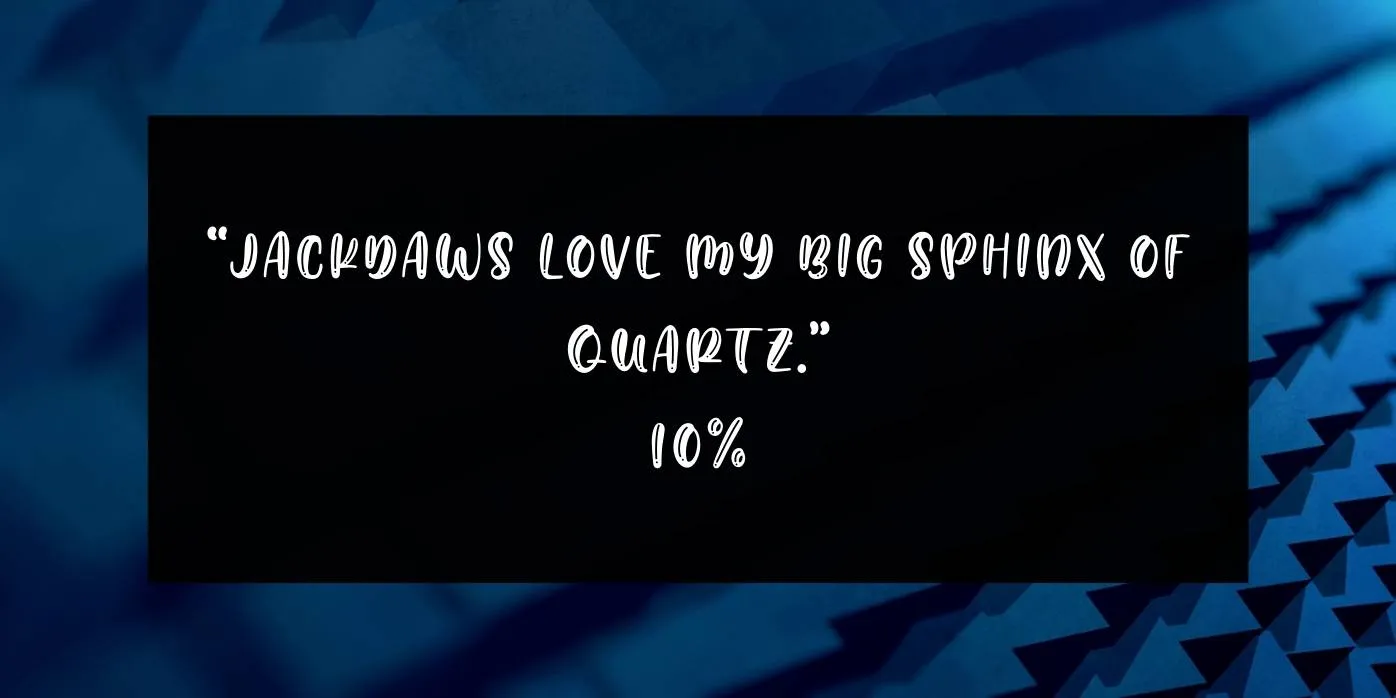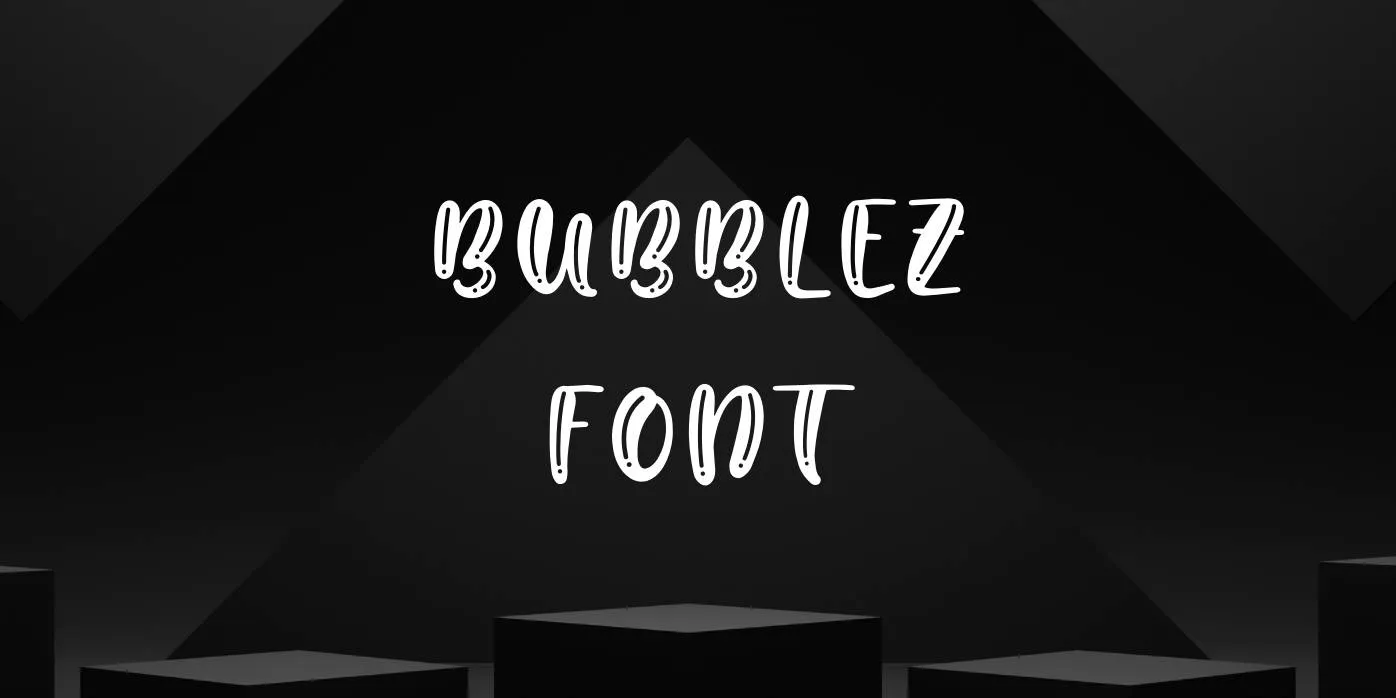
Bubblez Font
Bubblez Font is a very interesting and fun-loving font. The font is designed by Abdul Malik Wisnu and Published by Almarkha Type. This font can be used in two styles Bold and Italic. This font is created by using Fontcreator 11.5 from High-Logic.
Its weight is bold, width is medium and MAC style is also Bold. It consists of 190 glyphs and 1000 units per Em. This font is designed in a very fancy way so it is fundamentally designed for making headlines. It can be used for many other purposes in the display.
This font also provides an online generator tool which makes this font more reliable. This font supports two file formats TTF(TrueType Font) and OTF (Opentype font). Usage This font is unique and funny as it can be used for making funny text or can be used in cartoons for making headlines funny and attractive to children. It can also be used in the books of kids as this font is very wobbly which makes the text very unique and funny.
This font is considered a very loveable and delightful font. This stunning typeface can also be used for making birthday cards or invitations. This font can also be used for making logos and small projects. It can also be used for making some memory books in which you can paste your photos and write some memorable words in this font which makes your book very interesting.
This font can also be used for making banners and posters. This font also has the ability to pair with fjalla one font which makes your project look different and unique. As compared to other fonts this font can be more interesting and has a comic effect in it you can use this font for making product packing. This font can also be used in graphics and also used in Adobe Illustrator and Canva.